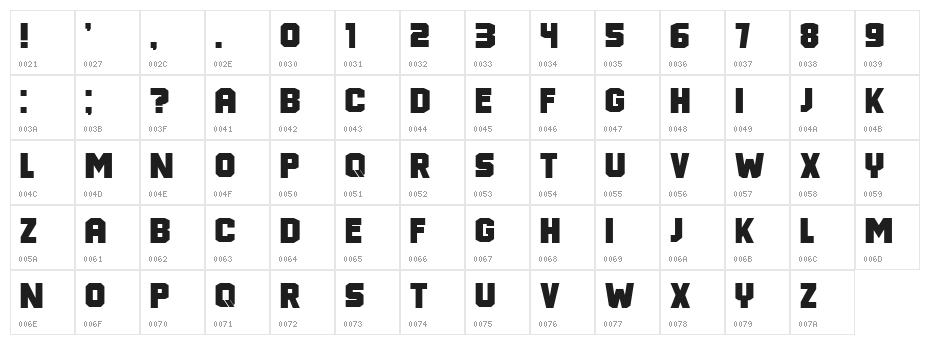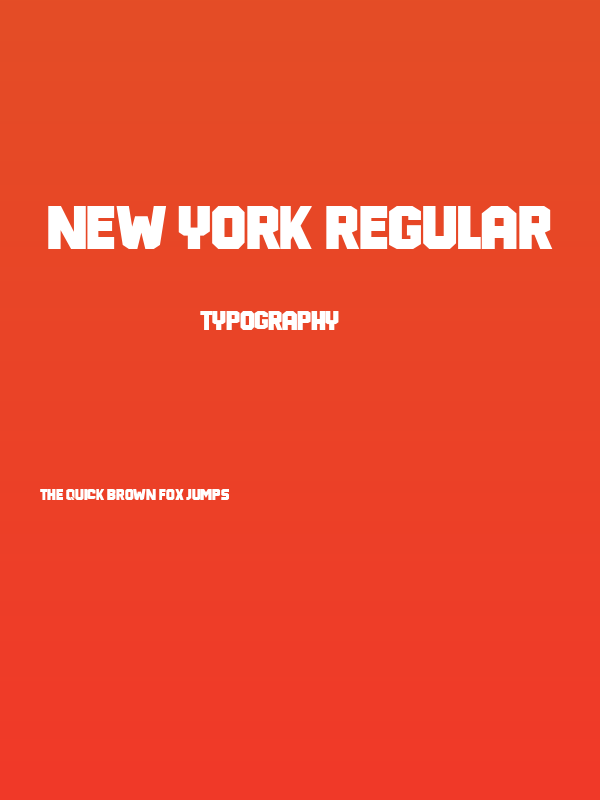
New York Regular Font
New York Regular Description
This font features a bold, geometric design with a strong presence. The characters are constructed with thick, uniform strokes that give them a robust and impactful appearance. The angular edges and straight lines contribute to a modern and industrial feel, making it ideal for attention-grabbing headlines. The uppercase letters are particularly striking, with a blocky aesthetic that emphasizes strength and stability. The numbers and special characters maintain this cohesive style, ensuring consistency across all text elements.
| Proposed Projects | Ideal for branding, posters, and signage where a strong, impactful presence is needed. |